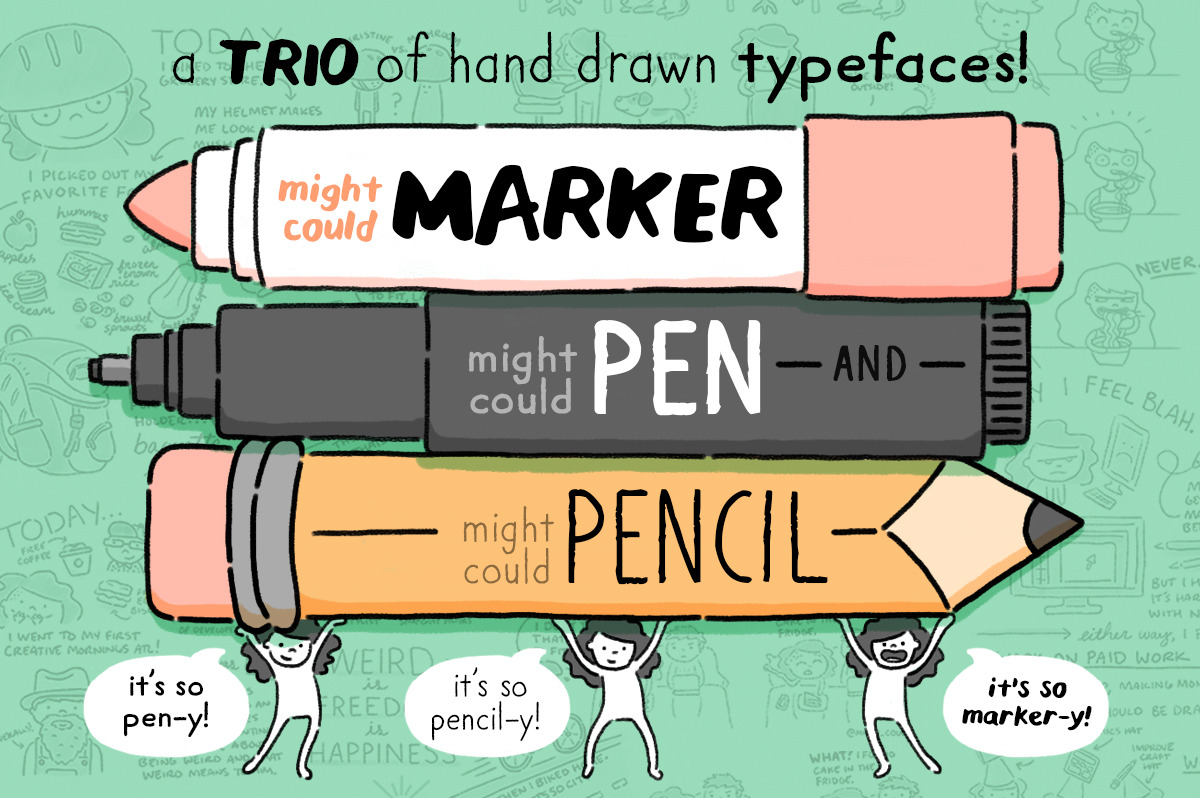
Might Could Drawing Tools Font Trio
Might Could Studios presents.... a trio of drawing tool fonts: Might Could Pencil, Might Could Pen, and Might Could Marker!
I hand draw a lot of typography for my comics, books, and promotional material, so I made my handwriting into a font, and then made two more fonts to pair with it! This font pack includes all three fonts, and this is the final addition to the series!
All these fonts are both hand drawn in my own handwriting, and are vectorized fonts. They're perfect for comics, graphic novels, books, invitations, business cards, or any other designer-y project you've got going on!
- Foreign language symbols for all fonts
Hand drawn font design:
- Roughness around the edges for a hand drawn, drawing tool feel
- Looks great in title case, lowercase, and uppercase